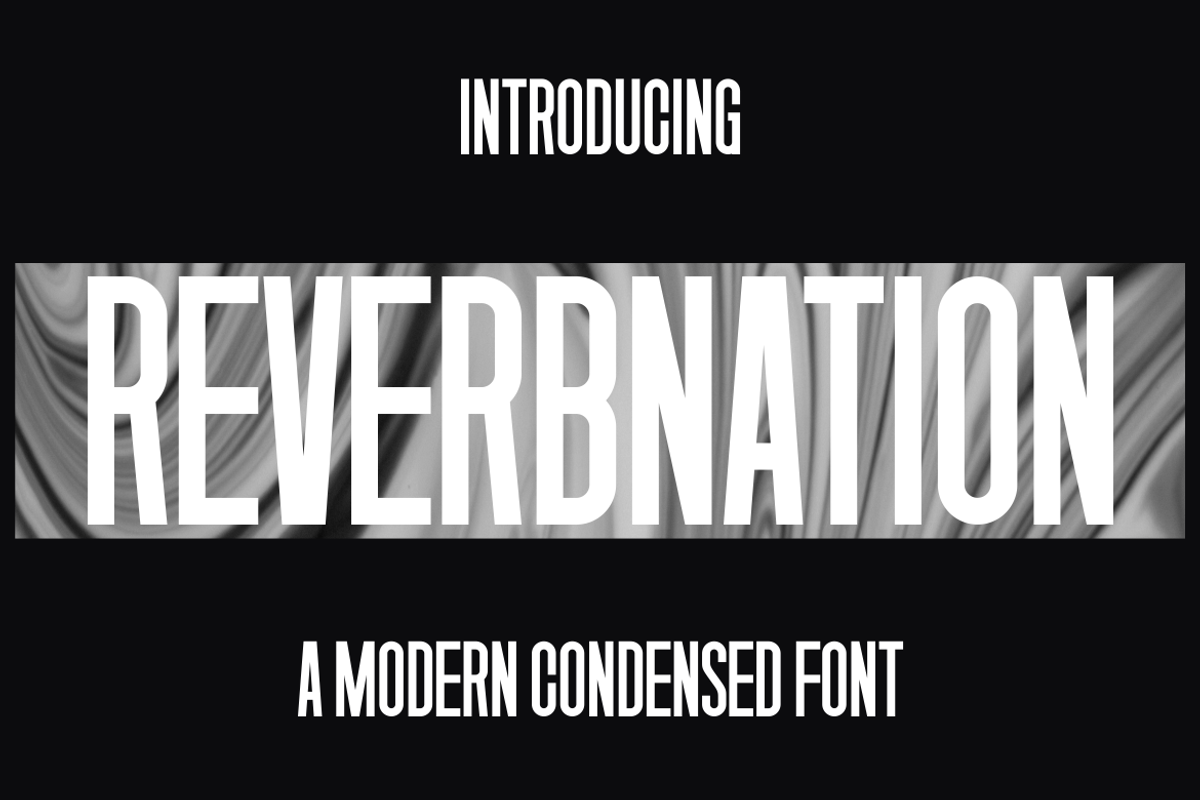
REVERBNATION
REVERBNATION is an authentic and unique modern condensed font that is perfect for professional and product branding needs. This font is suitable for any branding project such as quotes, logos, blog headers, posters, ribbons, letters, invitations, stationery, etc... It is designed to be versatile and flexible that can be used on a variety of projects and mediums. extraordinary in a variety of contexts.
- Uppercase Characters
- Lowercase Characters
- Punctuation & Numbers